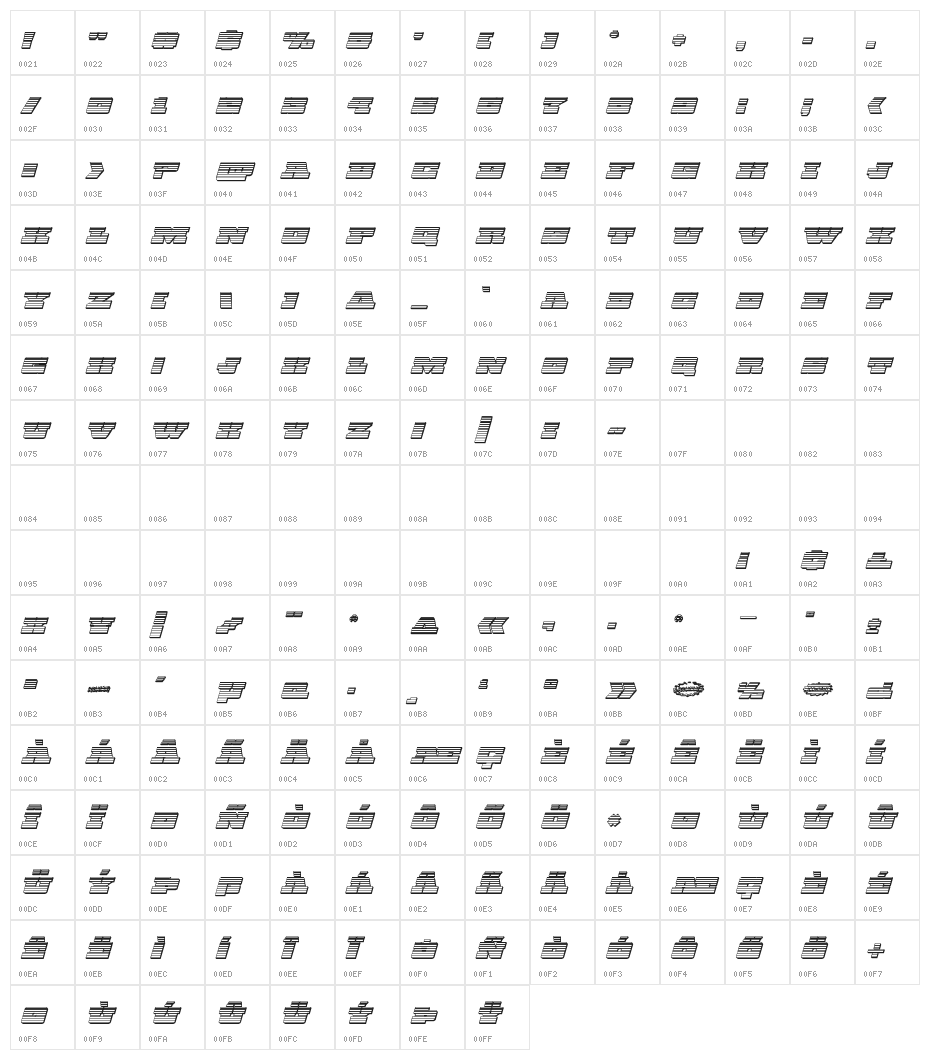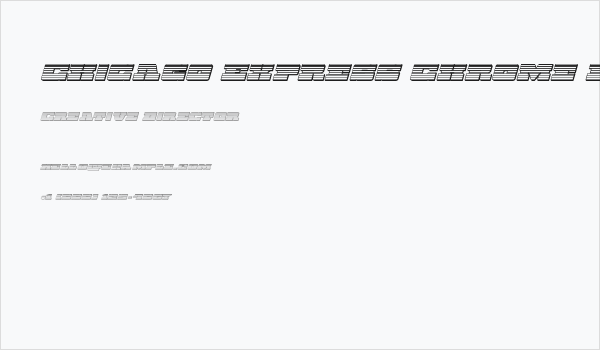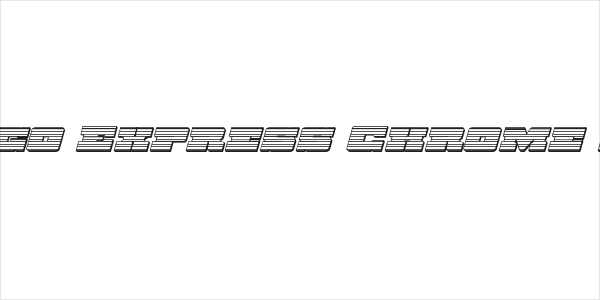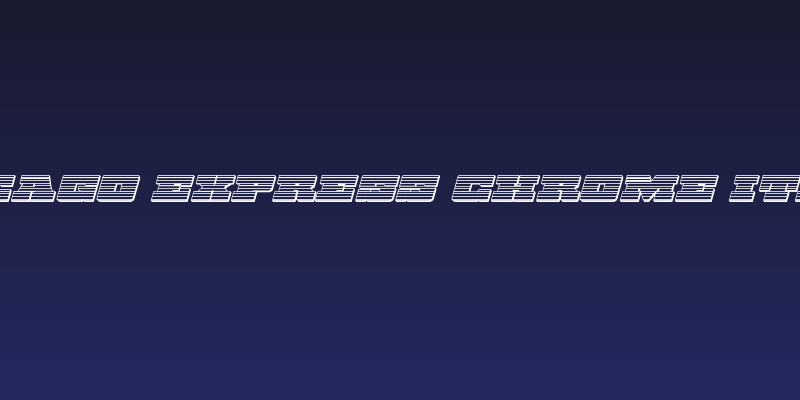
Chicago Express Chrome Italic Font
Chicago Express Chrome Italic Description
This font features a bold, futuristic design with a chrome-like appearance. Each character is constructed with multiple horizontal lines, giving it a layered and three-dimensional effect. The italic slant adds a sense of motion and speed, making it ideal for dynamic and modern applications. The uppercase and lowercase letters maintain a consistent style, with numbers and special characters following the same aesthetic. This font's unique design is eye-catching and suitable for projects that require a strong visual impact.
Proposed ProjectsIdeal for sci-fi themed posters, video game titles, automotive branding, and tech-related logos.